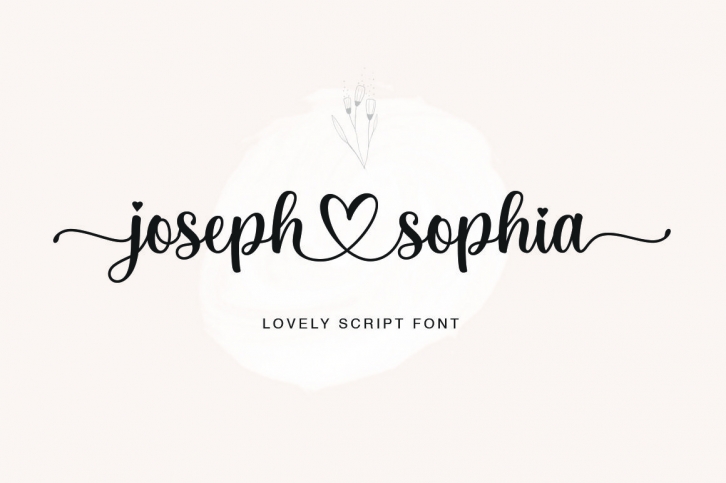
Joseph Sophia Script is a beautiful font that was designed by Fargunstudio. It's a great choice for designers and creatives who need such a font. It was released on July 17, 2020 and the file size is 2.46 MB. Joseph Sophia Script may give a more youthful, expressive and casual look to your project. It is a very beautiful, refined, elegant, and high-quality font.